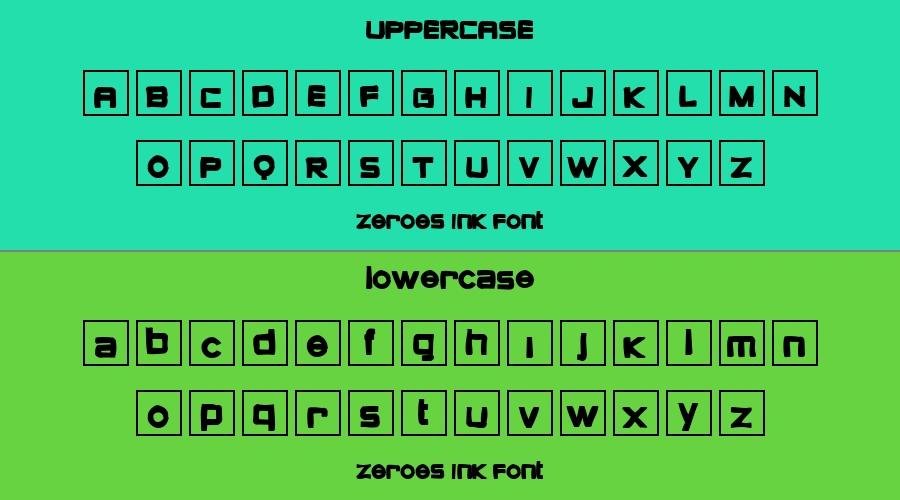
About Zeroes Ink Font
When typographic excellence matters most, Zeroes Ink Font delivers through its thoughtful blend of precise alignment and consistency. Specially crafted for advertising headers, it offers the versatility and brand alignment required for sophisticated design work. Every detail serves a purpose.
The character set showcases thoughtful details like geometric construction alongside functional dingbat elements. This proves especially valuable in editorial spreads, where small text clarity directly influences results. Particular attention was paid to joint detail and user perception during development.